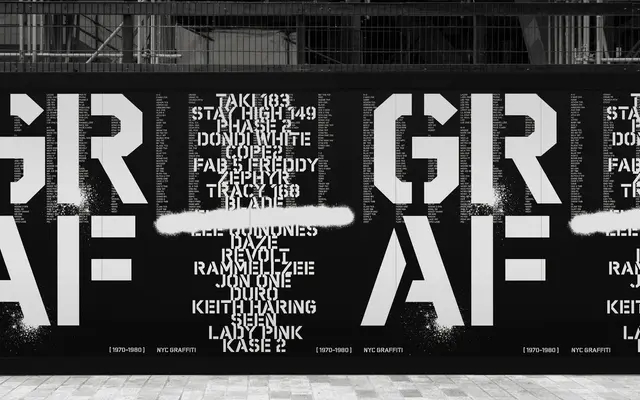
A six-weight geometric stencil face with deliberate stroke breaks that give it a clean, industrial character suited to technical and editorial contexts.
Built around straight lines, sharp angles and intentional gaps in the letterforms, Scriber leans into the stencil genre without sacrificing legibility or consistency. Six weights carry over 500 characters each, with a thorough set of OpenType features including tabular figures, fractions, ligatures and case-sensitive forms. Western, Southern and Central European Latin scripts are covered, making it a practical choice for multilingual projects alongside its typographic character.
Scriber is explicitly described as a geometric stencil typeface, characterised by deliberate stroke breaks and sharp angles that give it an industrial, technical quality.